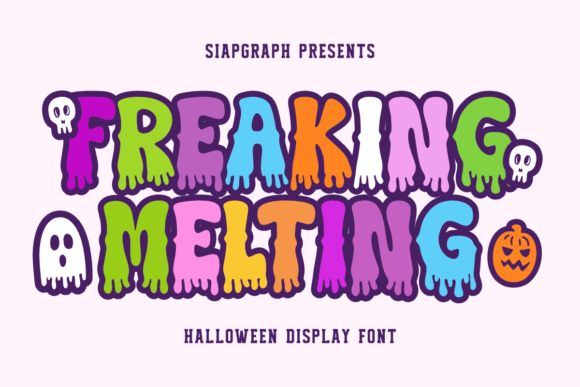
Freakingmelting Regular Font: The Ultimate Halloween Display Font for Spooky Designs
Are you looking for a font that will add a spooky, yet playful touch to your Halloween designs? Look no further than the Freakingmelting Regular Font. This eerie and charming display font is perfect for creating festive and fun designs for Halloween t-shirts, trick-or-treat tote bags, spooky mugs, sublimation crafts, and Cricut projects.
What Makes Freakingmelting Regular Font So Special?
Freakingmelting Regular Font is a unique and eye-catching font that features vibrant, melting letterforms and a ghostly vibe. Its quirky and haunted twist makes it ideal for print-on-demand creators and artisan entrepreneurs who want to add a touch of eerie charm to their festive products. The font’s playful and cartoonish feel also makes it perfect for designers who want to create fun and spooky designs for kids and adults alike.
Key Features of Freakingmelting Regular Font
- Spooky and Playful Design: Freakingmelting Regular Font features a unique and eye-catching design that’s perfect for Halloween and other spooky occasions.
- Vibrant and Melting Letterforms: The font’s melting letterforms give it a fun and quirky feel that’s sure to grab attention.
- Ghostly Vibe: The font’s ghostly vibe adds to its spooky charm and makes it perfect for creating eerie and haunted designs.
- PUA Encoding: The font features PUA encoding, which ensures that all stylistic features and extras can be used with just a few clicks.
How to Use Freakingmelting Regular Font in Your Designs
Freakingmelting Regular Font is easy to use and can be incorporated into a variety of designs, including:
- Halloween T-Shirts: Create spooky and fun designs for Halloween t-shirts that are sure to grab attention.
- Trick-or-Treat Tote Bags: Add a touch of eerie charm to trick-or-treat tote bags with Freakingmelting Regular Font.
- Spooky Mugs: Create haunted and fun designs for spooky mugs that are perfect for Halloween.
- Sublimation Crafts: Use Freakingmelting Regular Font to add a spooky touch to sublimation crafts, such as ghostly designs and haunted scenes.
- Cricut Projects: Incorporate Freakingmelting Regular Font into Cricut projects, such as spooky signs, haunted decorations, and eerie cards.
Why Freakingmelting Regular Font is Perfect for Print-on-Demand Creators and Artisan Entrepreneurs
Freakingmelting Regular Font is perfect for print-on-demand creators and artisan entrepreneurs who want to add a quirky haunted twist to their festive products. The font’s unique and eye-catching design makes it easy to create spooky and fun designs that are sure to grab attention. Additionally, the font’s PUA encoding ensures that all stylistic features and extras can be used with just a few clicks, making it easy to incorporate into a variety of designs.
Tips and Tricks for Using Freakingmelting Regular Font
- Experiment with Different Colors: Try out different colors and combinations to create unique and eye-catching designs.
- Mix and Match with Other Fonts: Combine Freakingmelting Regular Font with other fonts to create interesting and dynamic designs.
- Use it for a Variety of Designs: Don’t just limit Freakingmelting Regular Font to Halloween designs – use it for other spooky occasions, such as haunted houses, ghostly gatherings, and eerie events.
In conclusion, Freakingmelting Regular Font is a unique and eye-catching display font that’s perfect for creating spooky and fun designs for Halloween and other spooky occasions. Its vibrant, melting letterforms and ghostly vibe make it ideal for print-on-demand creators and artisan entrepreneurs who want to add a quirky haunted twist to their festive products. With its PUA encoding and ease of use, Freakingmelting Regular Font is a must-have font for any designer or crafter looking to create eerie and charming designs.